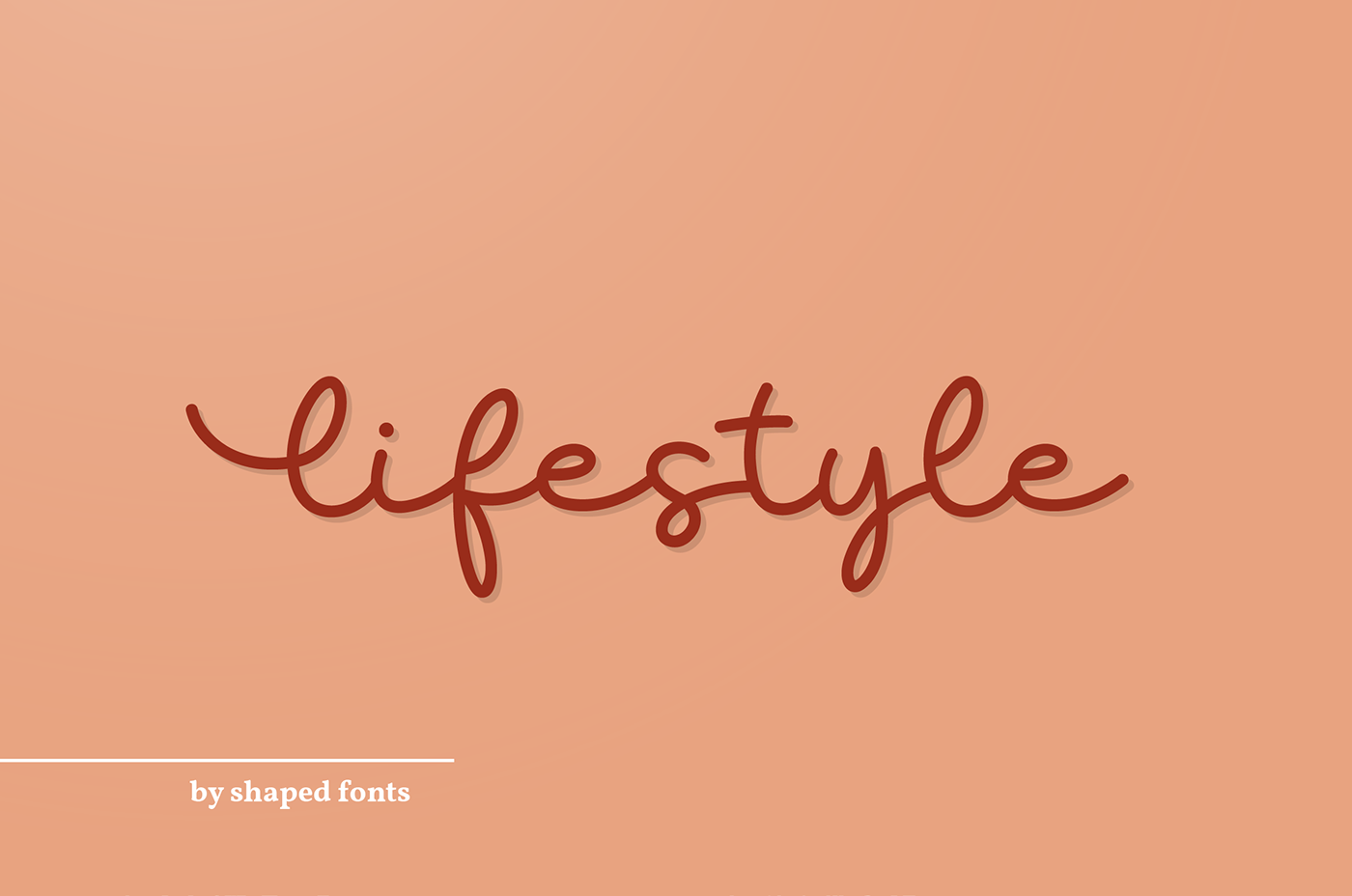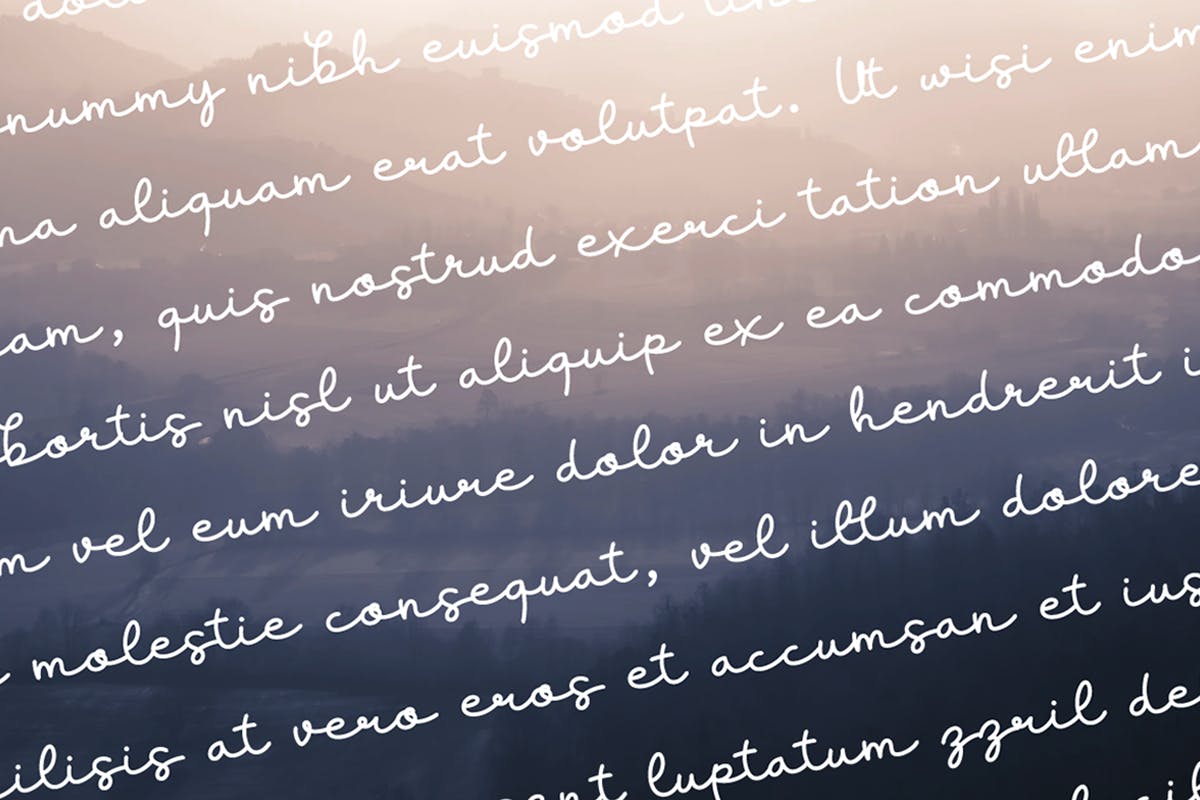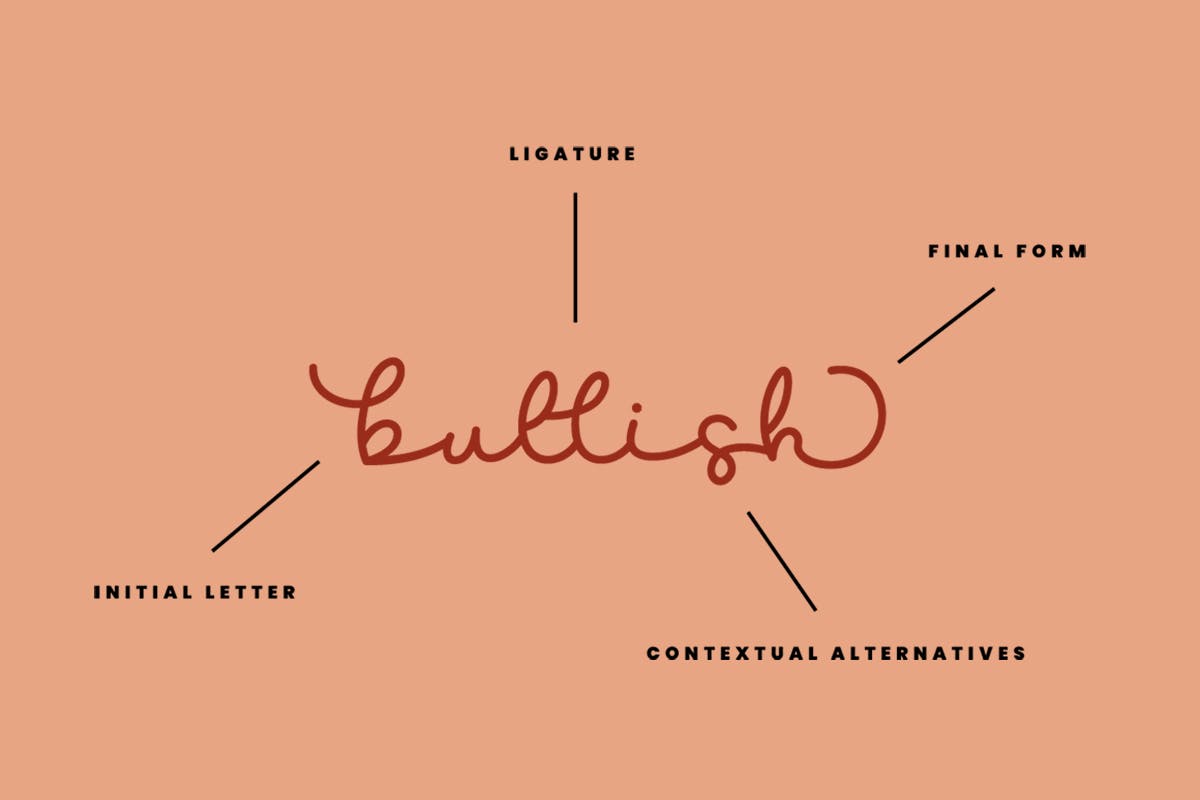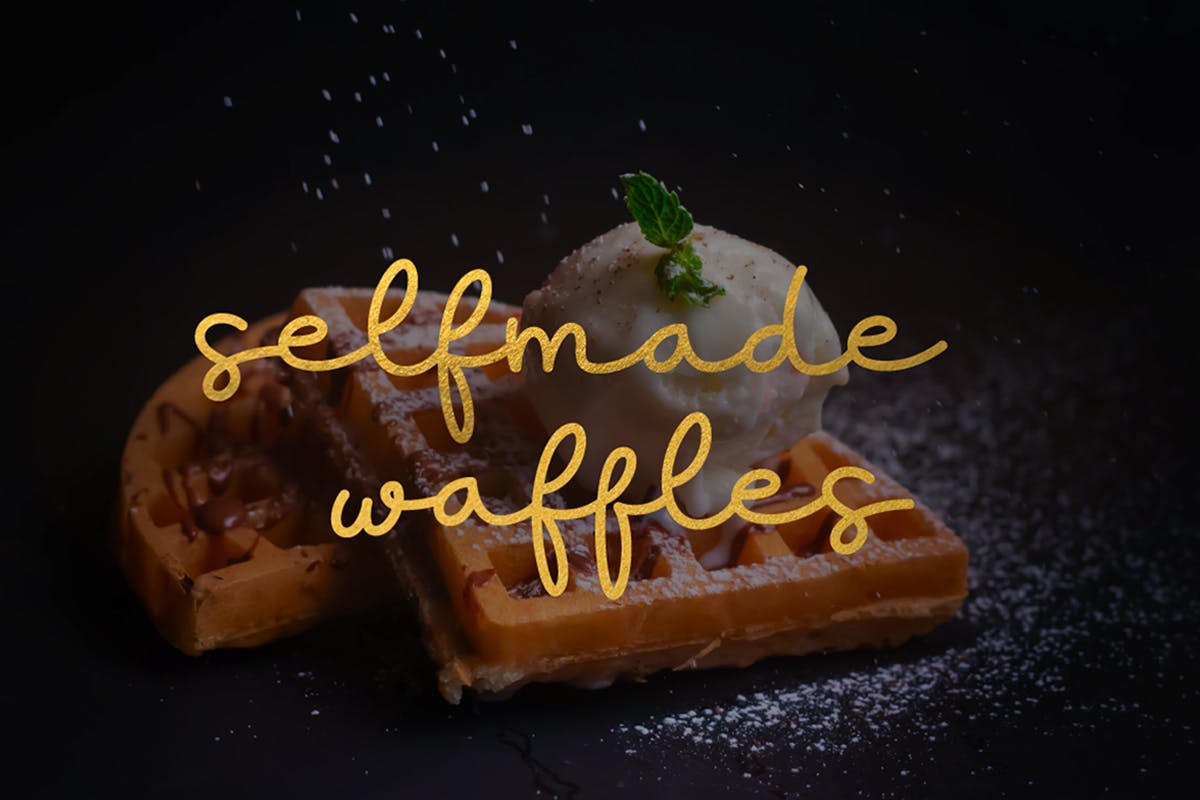
Free Lifestyle Monoline Script Font
Free Lifestyle Monoline Script Font is a gorgeous font and the newest handwritten font from Shaped Fonts. It comes with loads of contextual alternates, initial & terminal forms, and more. This font distributes 600 glyphs that you can use it based on your need. Also, Each letter is hand-drawn to make it matching each other. So, This free font is available for a personal use license, but if you want to use it on commercial use, please read the license.